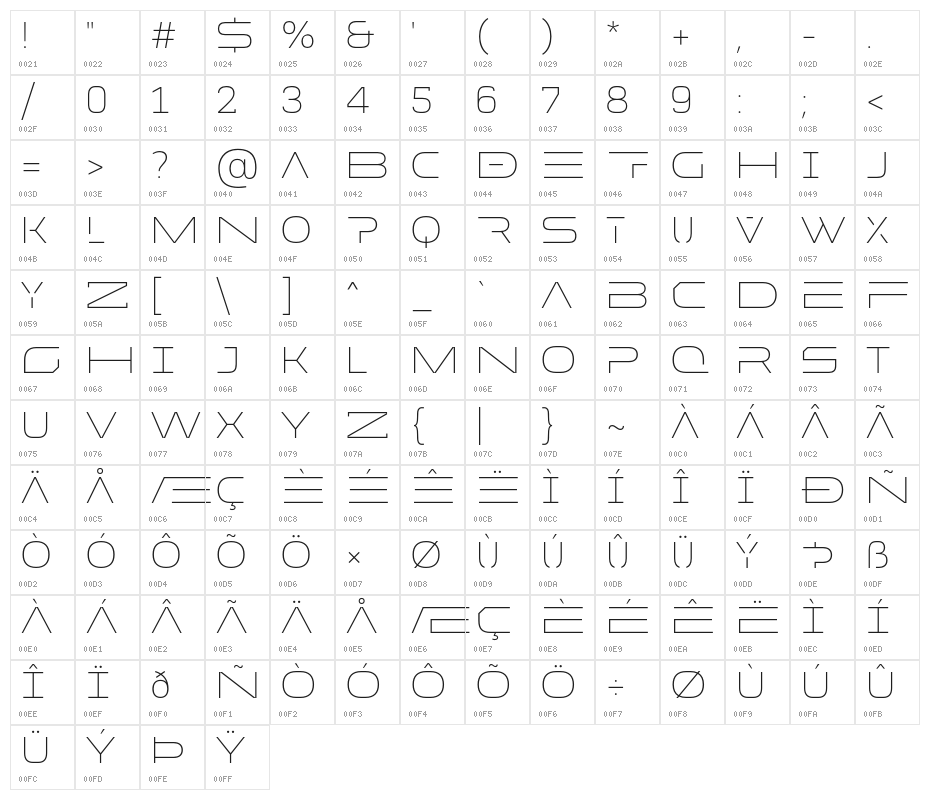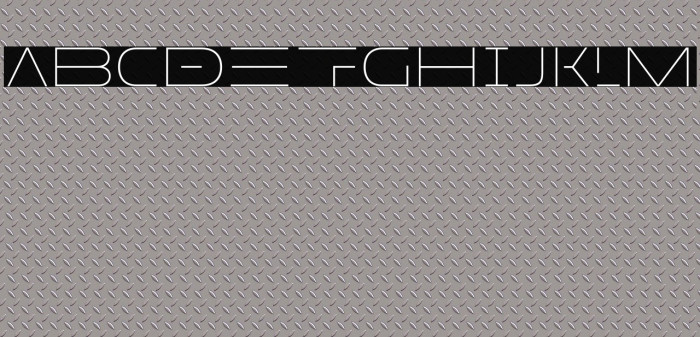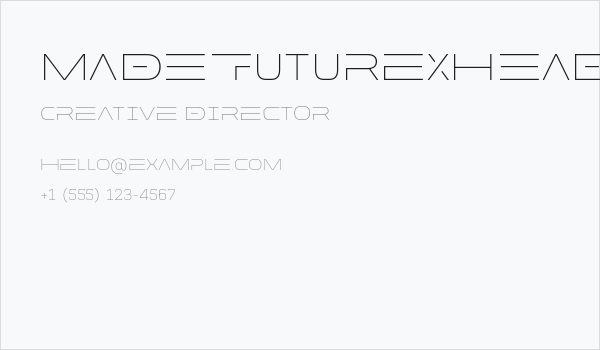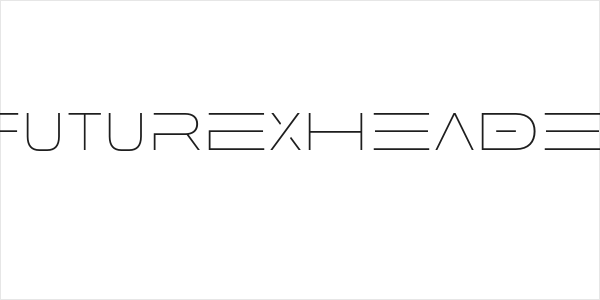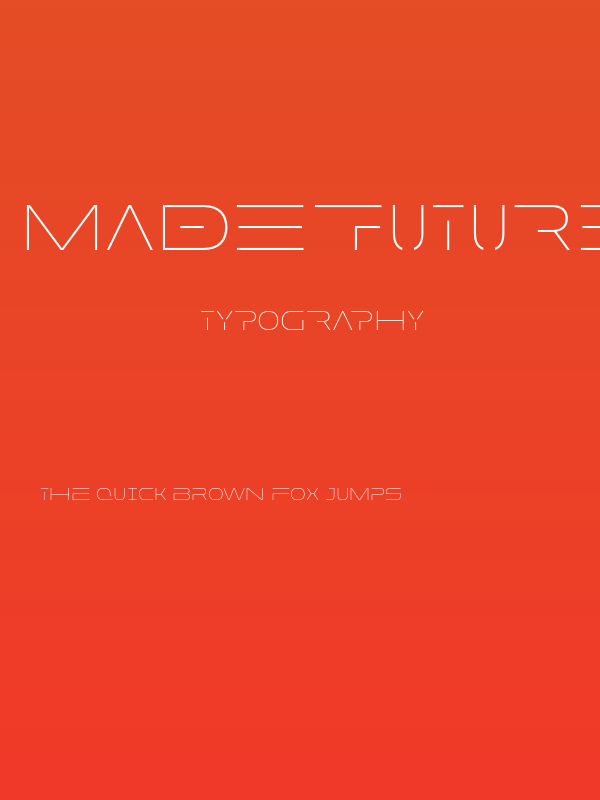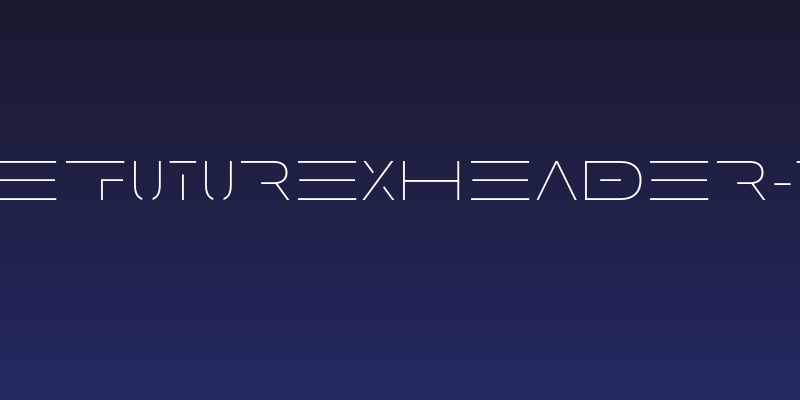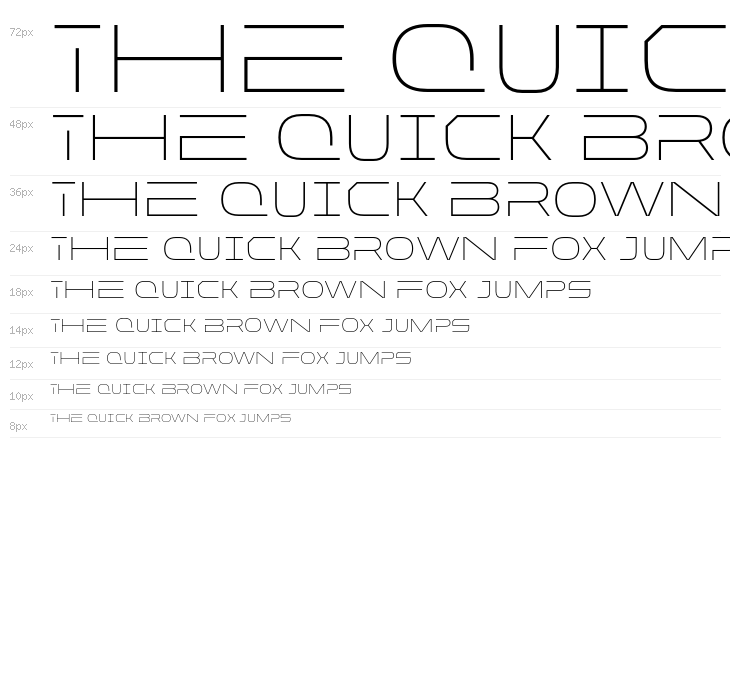
MADEFutureXHEADER-Thin Font
MADEFutureXHEADER-Thin Description
This font features a futuristic and minimalist design with a geometric structure. The characters are composed of thin, clean lines with a consistent stroke width, giving it a sleek and modern appearance. The uppercase and lowercase letters maintain a uniform height, contributing to its streamlined look. The numerals and special characters follow the same design principles, ensuring a cohesive visual style across all elements. The font's simplicity and clarity make it suitable for digital interfaces and modern branding projects.
A futuristic, minimalist font with thin, geometric lines from Uncategorized fonts.
- Font: MADEFutureXHEADER-Thin
- Proposed Projects: Ideal for tech branding, digital interfaces, modern advertising, and futuristic-themed designs.
- Weight: Light
- Use Case: Headlines, Logos, Digital interfaces